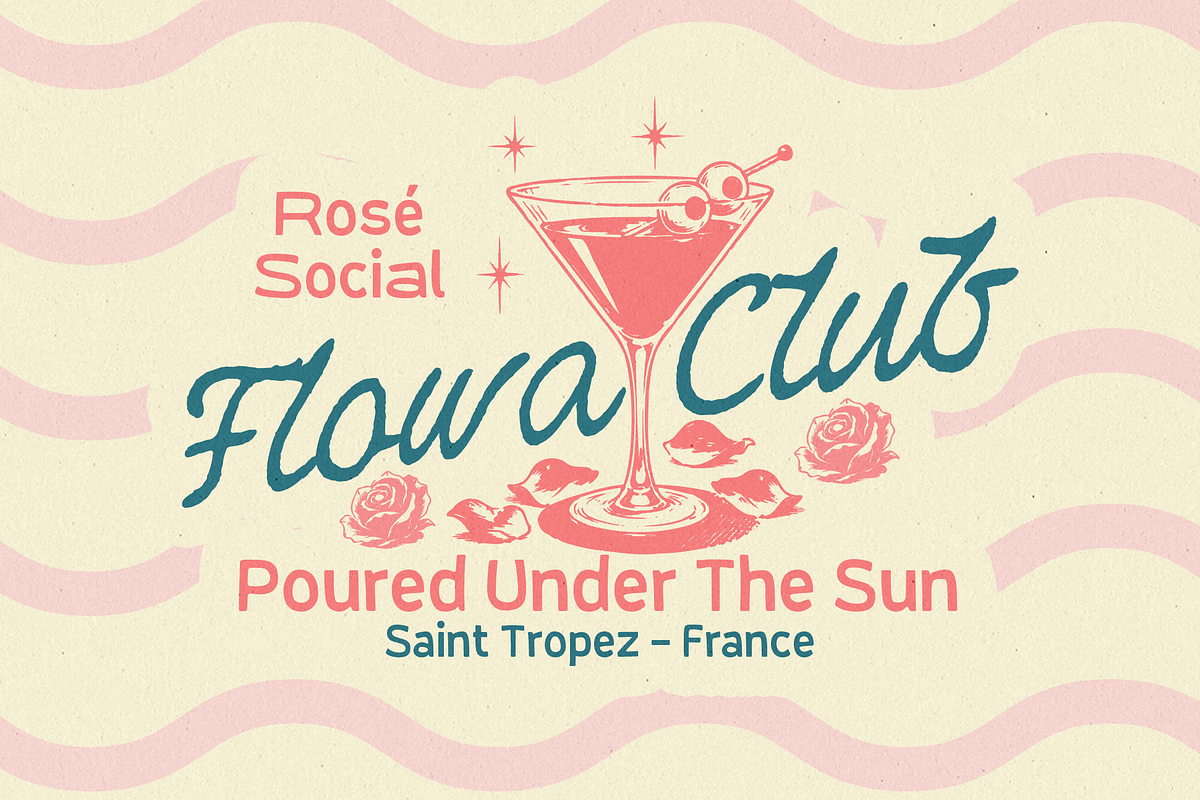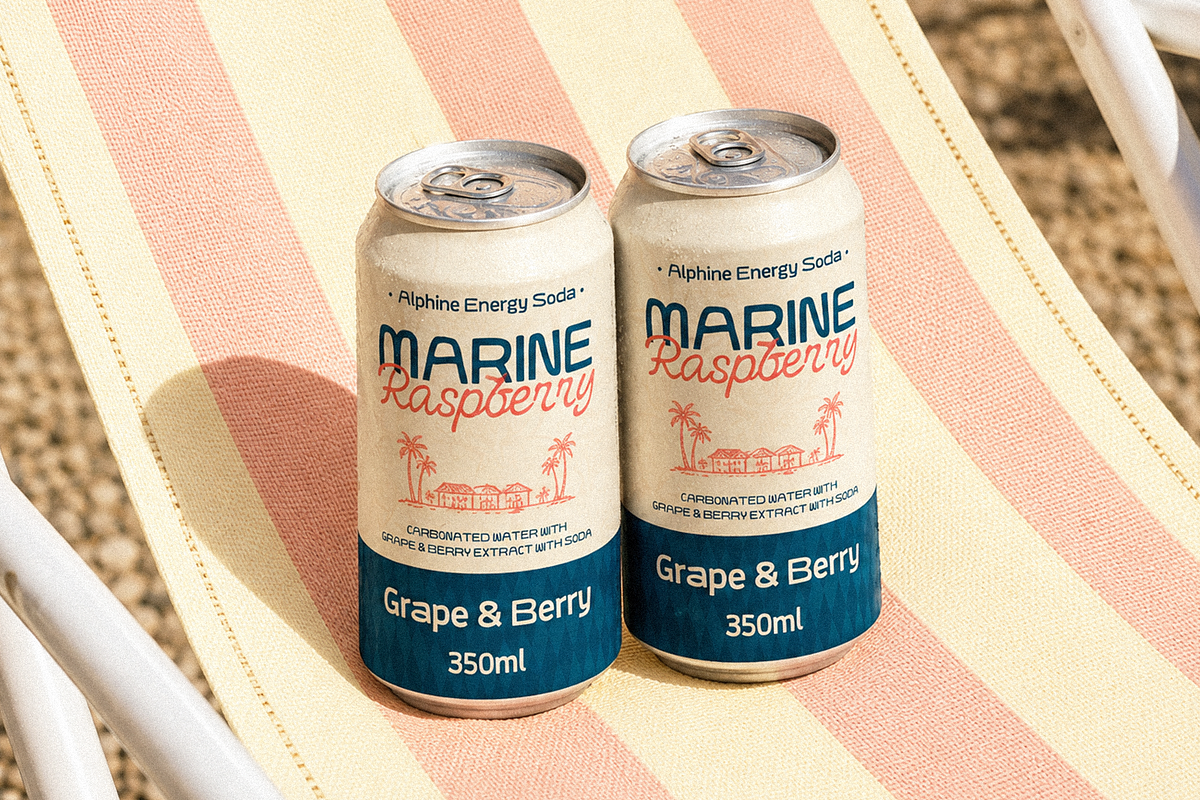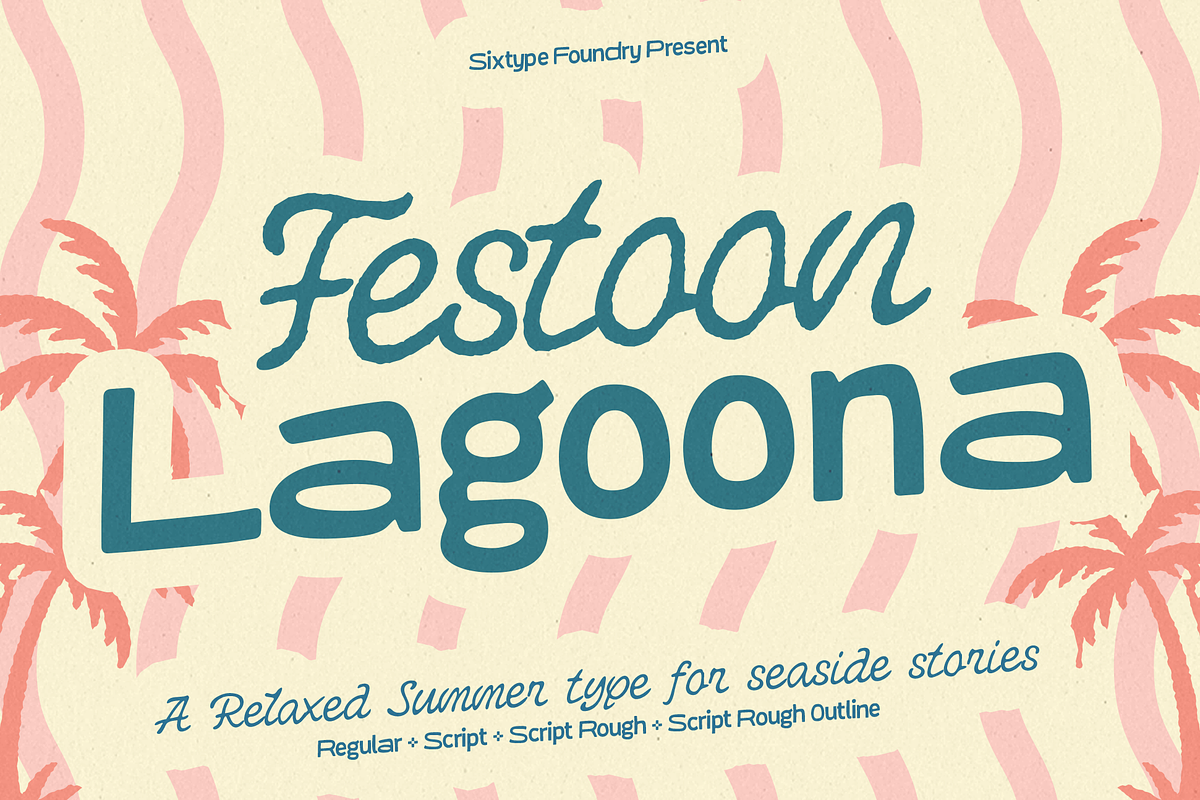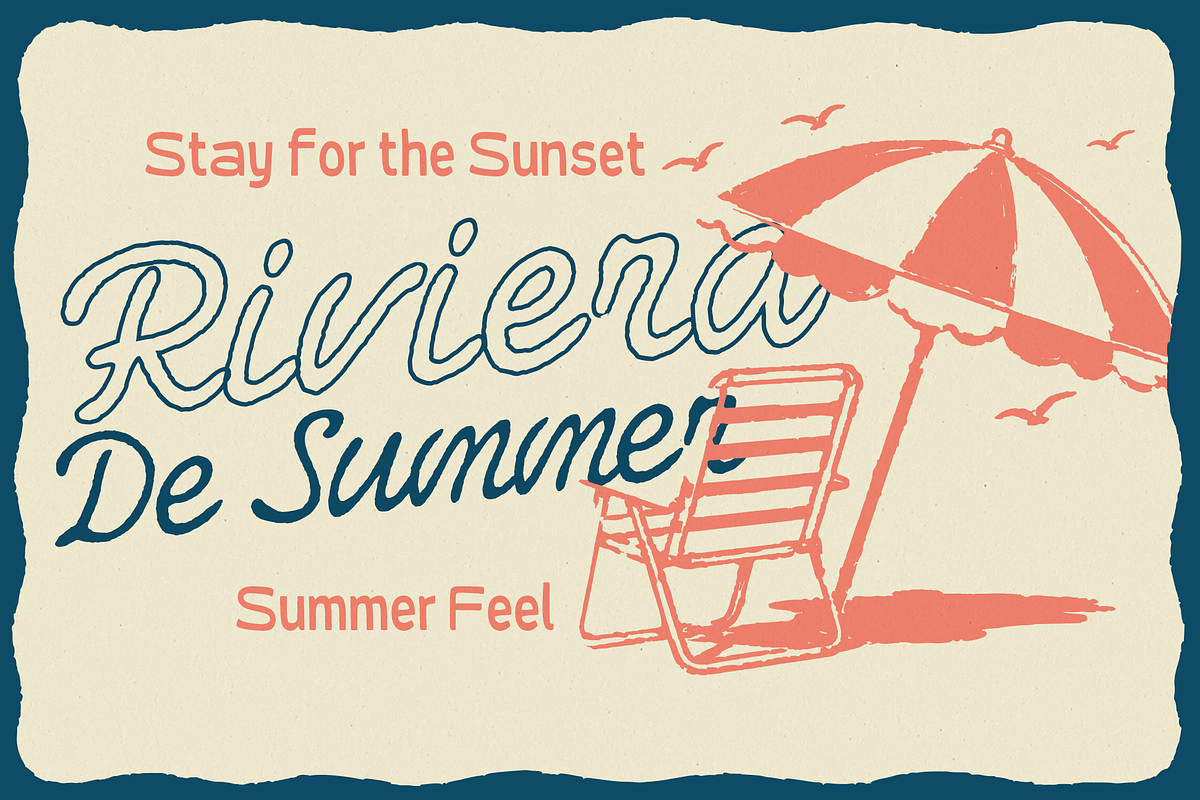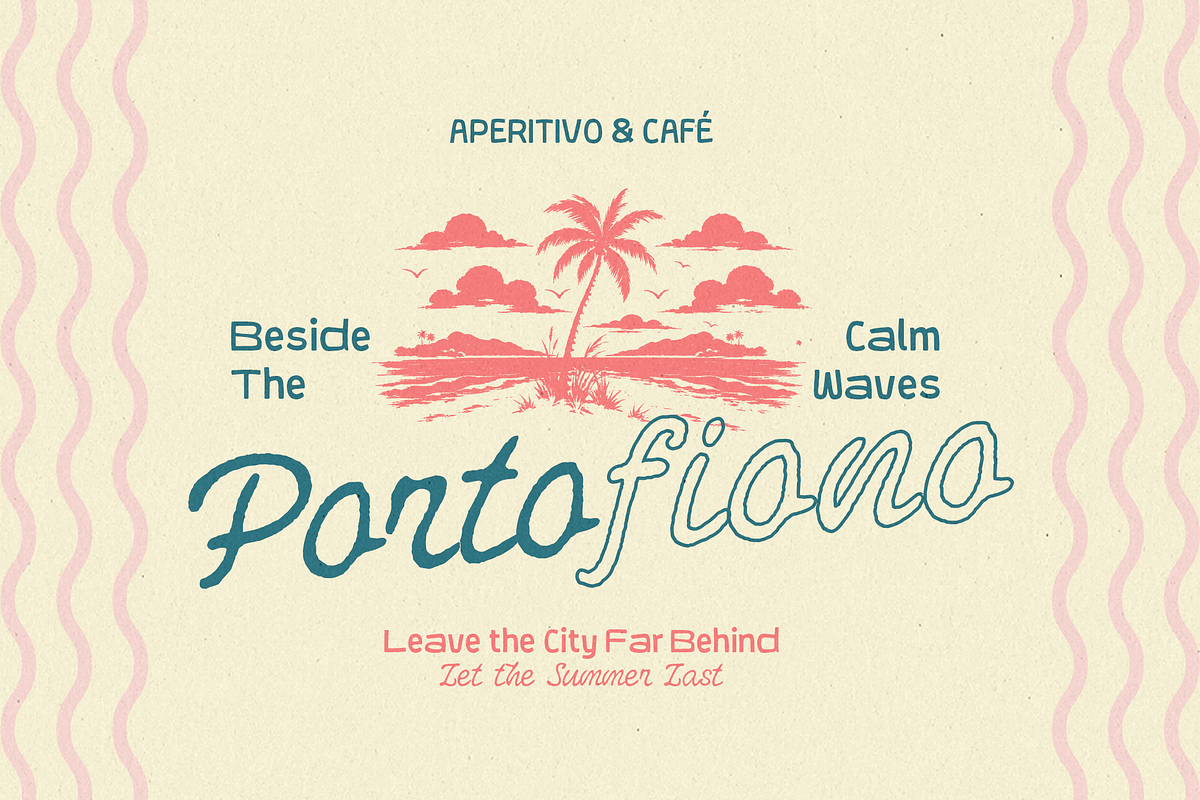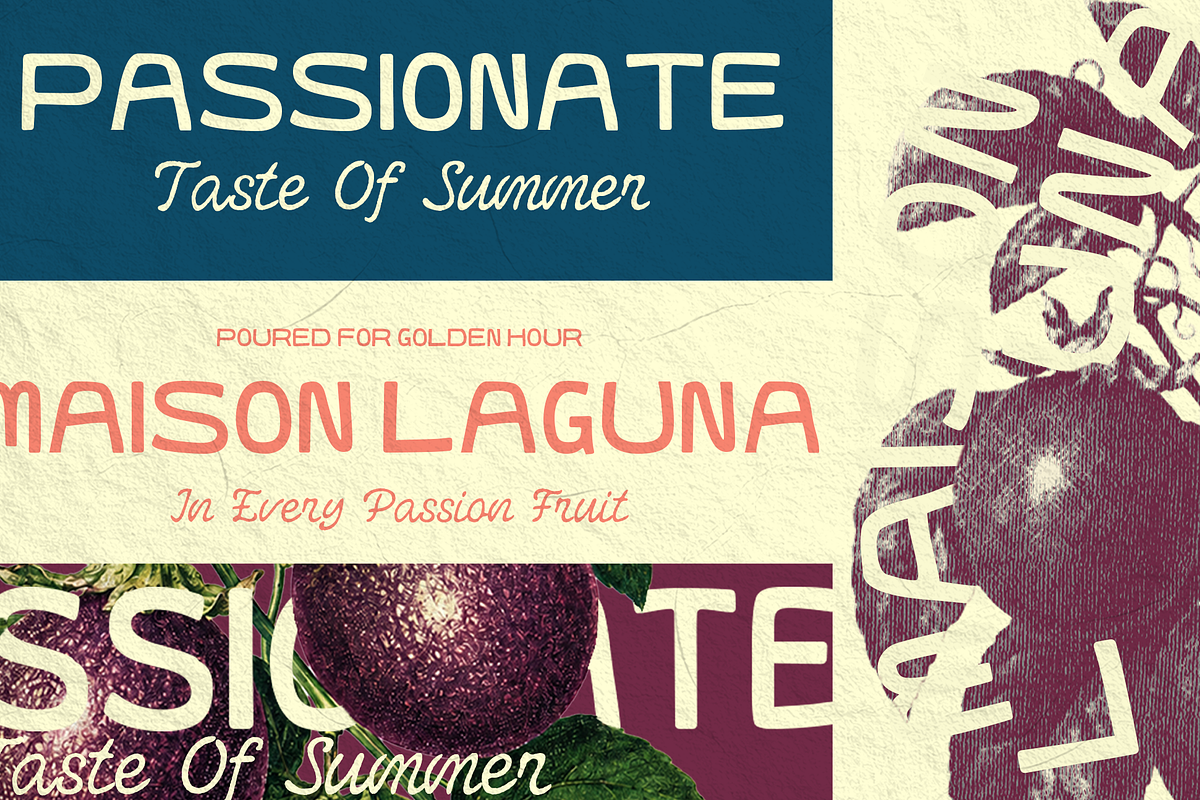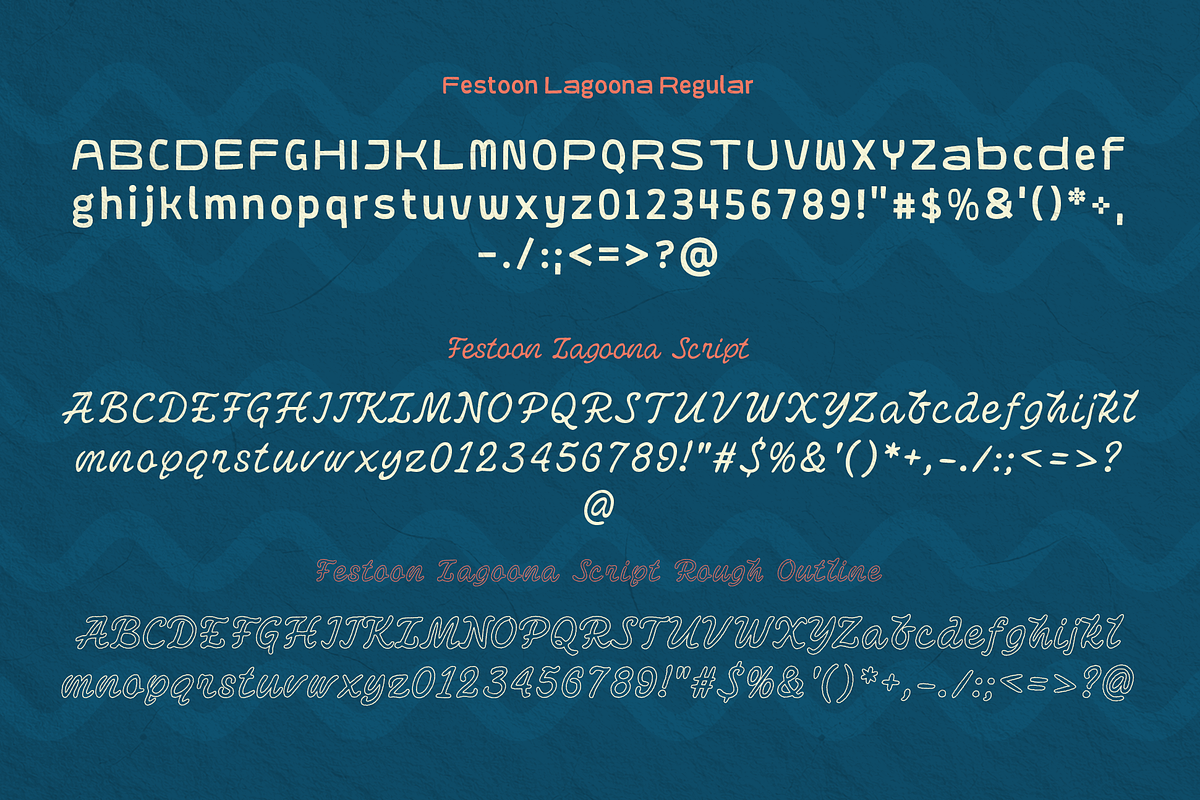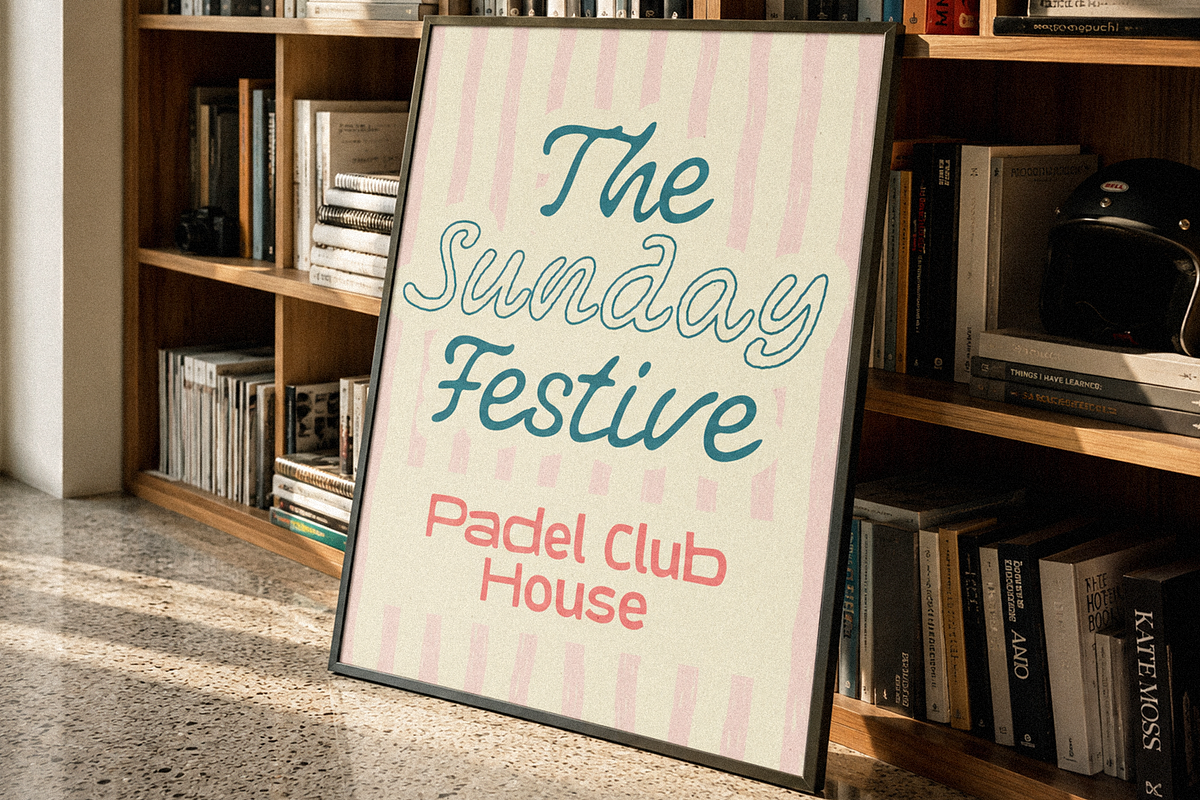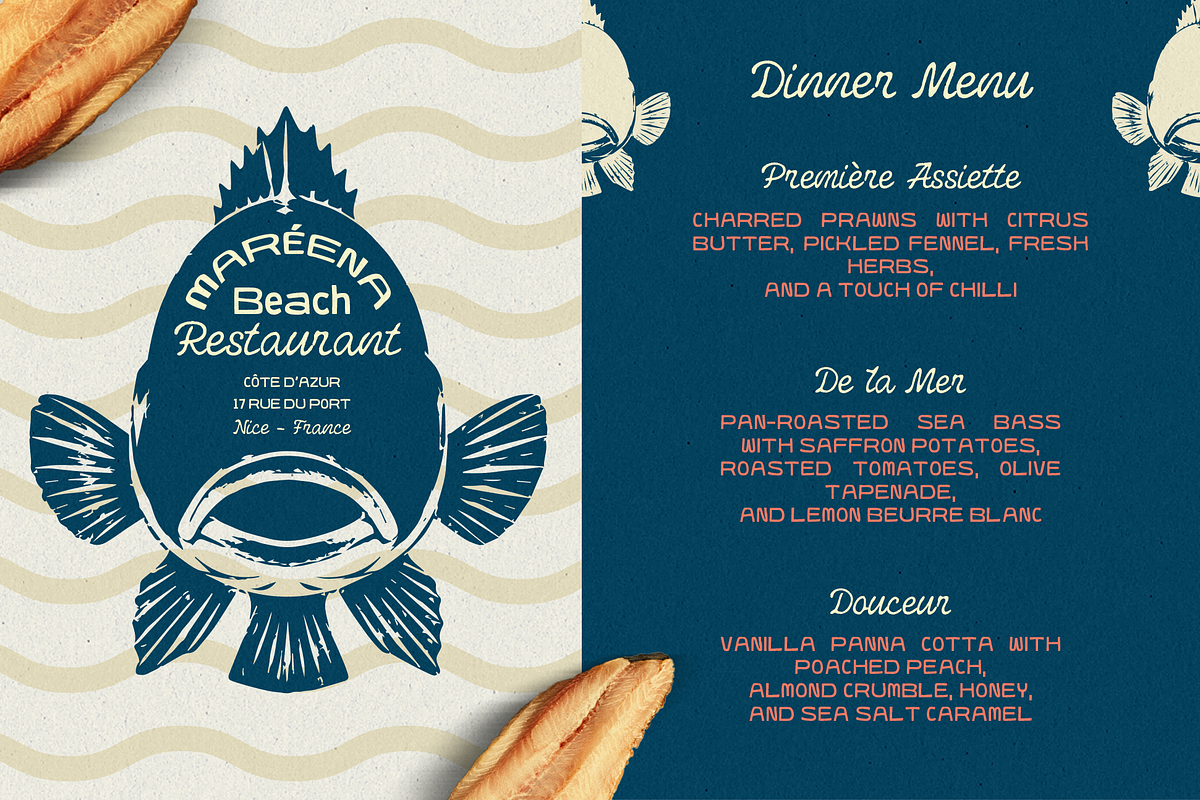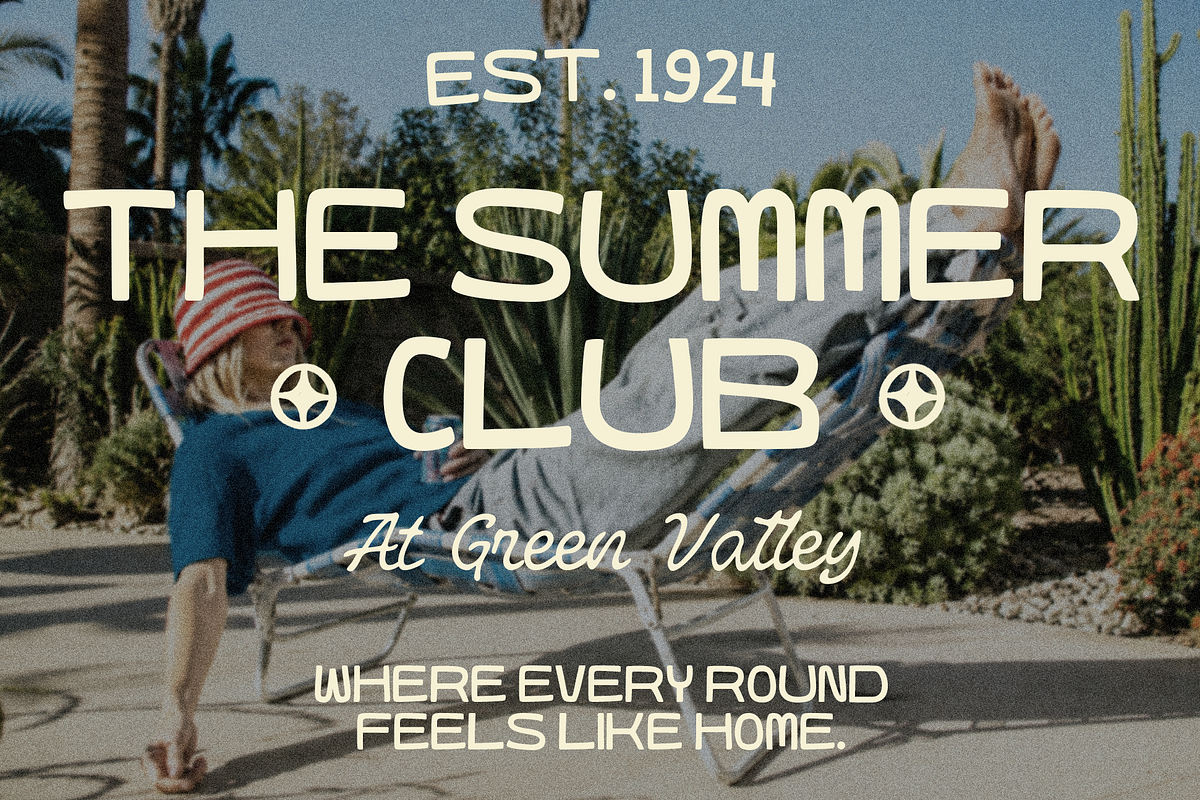
Festoon Lagoona Script and Sans
Festoon Lagoona is a playful script and sans duo, rounded out with rough and outline script variants for extra texture. The Sans carries a rounded, friendly structure with even strokes and soft corners, built to sit comfortably beneath the script styles. The Script leans casual and hand-lettered, with a bouncy, slightly slanted rhythm that feels relaxed rather than formal. The Rough variant adds a textured, hand-drawn edge to that same script, while the Outline version hollows it out for layering or embossed-style effects.
What makes Festoon Lagoona versatile is the range packed into four coordinated styles. The Script stays legible and casual for headers, the Rough version adds a worn, handmade texture, the Outline gives a lighter layering option, and the Sans anchors everything else with clean, readable structure. Together they give a single project multiple looks without needing a second typeface.
Picture the Script heading up a summer camp logo, the Rough or Outline version stamped across a beach towel or sticker design, and the Sans carrying the details underneath. That range, casual header, textured accent, quiet body copy, is where this set does its best work.
Festoon Lagoona suits summer and beach branding, kids' camp and outdoor logos, sticker and badge design, packaging for playful products, and social media graphics that want a relaxed, handmade feel.